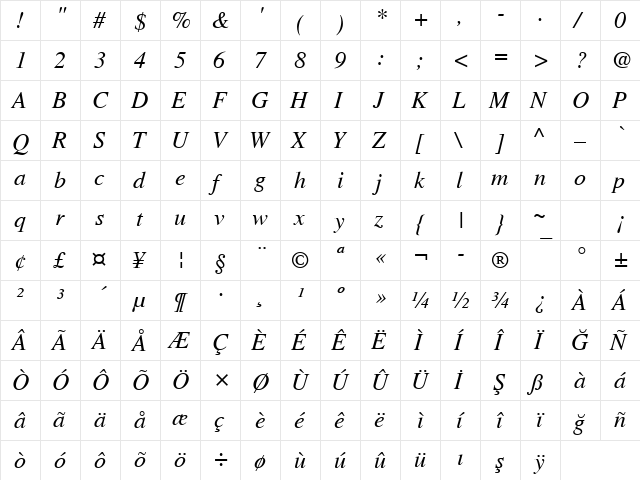
NimbusRomNo9LTU Italic
Design Context for NimbusRomNo9LTU Typeface
NimbusRomNo9LTU is a composed and adaptable typeface that performs quietly and consistently across a wide range of design contexts. The dynamic lean of this cut emphasises speed and emphasis in any layout.
Pro Tip: Use NimbusRomNo9LTU for emphasis, pull quotes, and subheadings where its slanted energy can add rhythm to the layout.